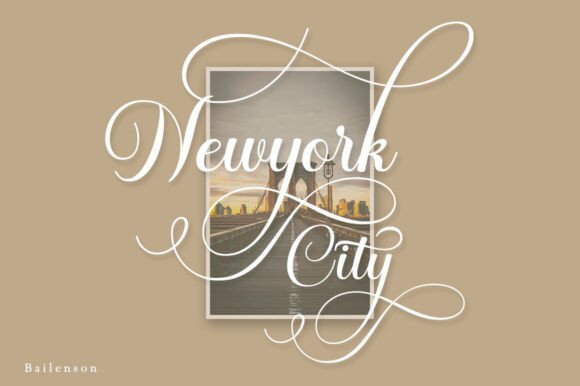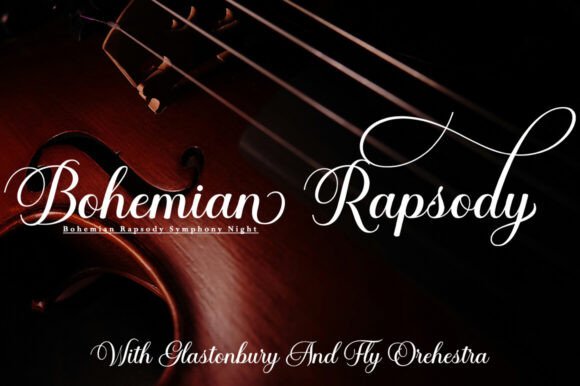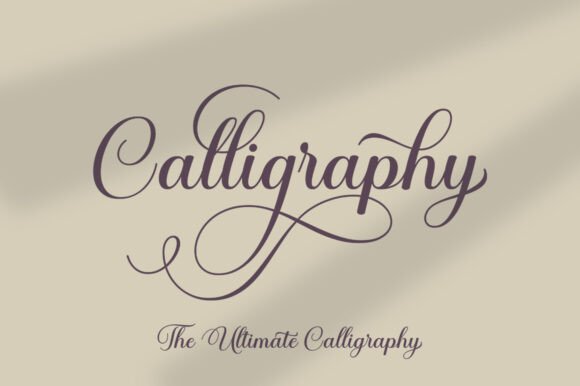
Calestine Calligraphy Font
Calestine Calligraphy Is a calligraphy Vintage script font that comes with beautiful alternate characters. copper plate mix calligraphy with handlettering style. Designed to convey stylish elegance. Calestine Calligraphy attracts like a typeface that is smooth, clean, feminine, sensual, glamorous, simple and very easy to read.Calestine Calligraphy comes with a Clean and Aged version, beautiful upper and lower case, binding and loved by many finishes. It has Multilingual support (Western European characters) and works with the following languages: English, Danish, Dutch, Estonian, Finnish, French, German, Hungarian, Icelandic, Italian, Norwegian, Polish, Portuguese, Spanish, Swedish.In my example I show how this script can be used. It’s perfect for logos, wedding invitations, alcohol labels, romantic cards, and more.Products include: Clean & Aged Script Versions (OTF and TTF) Alternative Upper & Lowercase Styles fastener Recommended for use in Adobe Illustrator or Photoshop. Special features do not work in Microsoft Word.